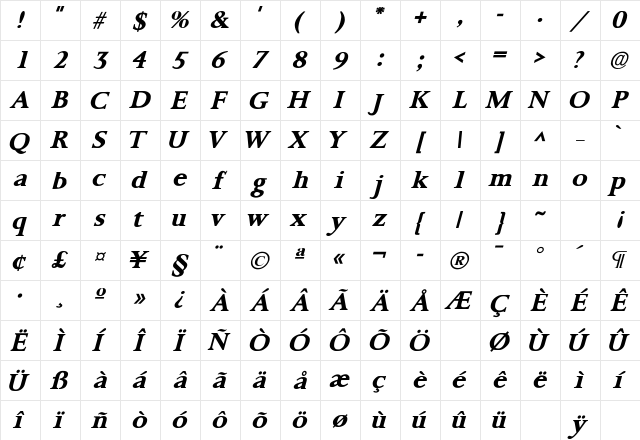
Palermo SF Bold Italic Bold Font Preview
Design Context for Palermo SF Bold Italic Typeface
Palermo SF Bold Italic is a composed and adaptable typeface that performs quietly and consistently across a wide range of design contexts. Its italic angle brings a sense of urgency and motion to the letterforms. The heavy weight commands attention and anchors typographic hierarchies.